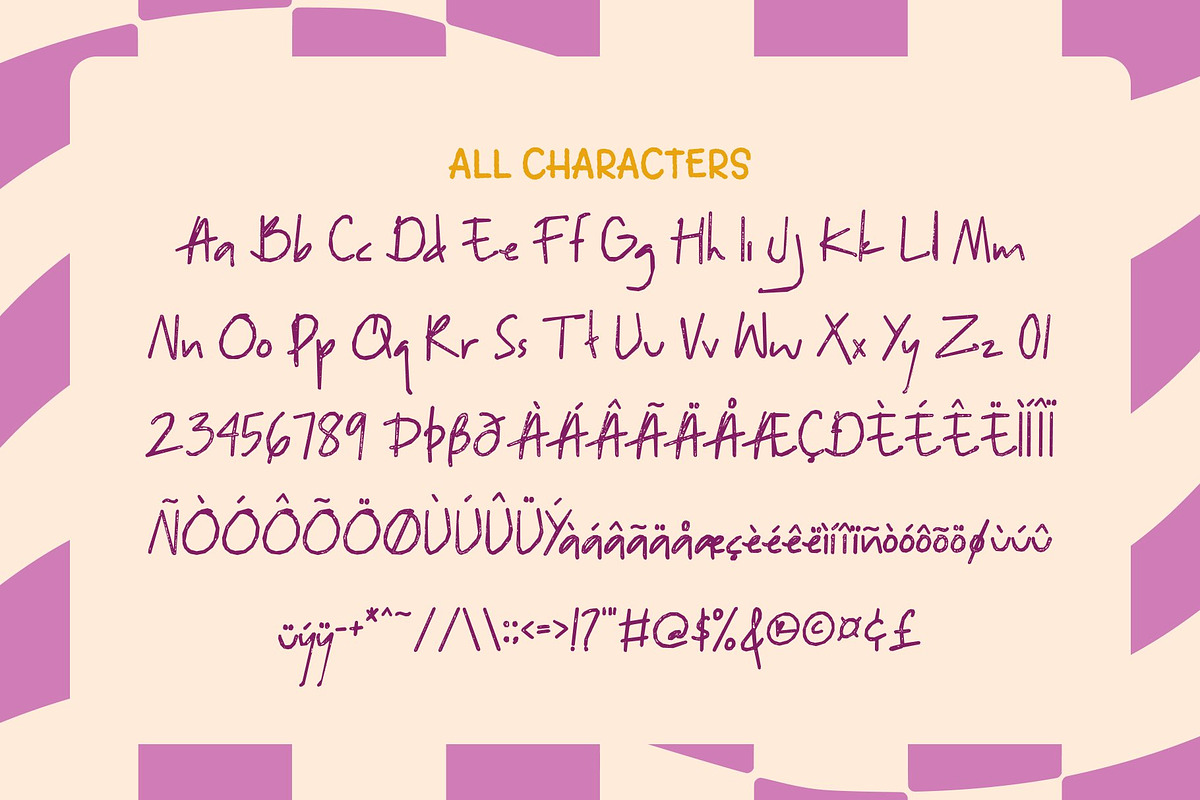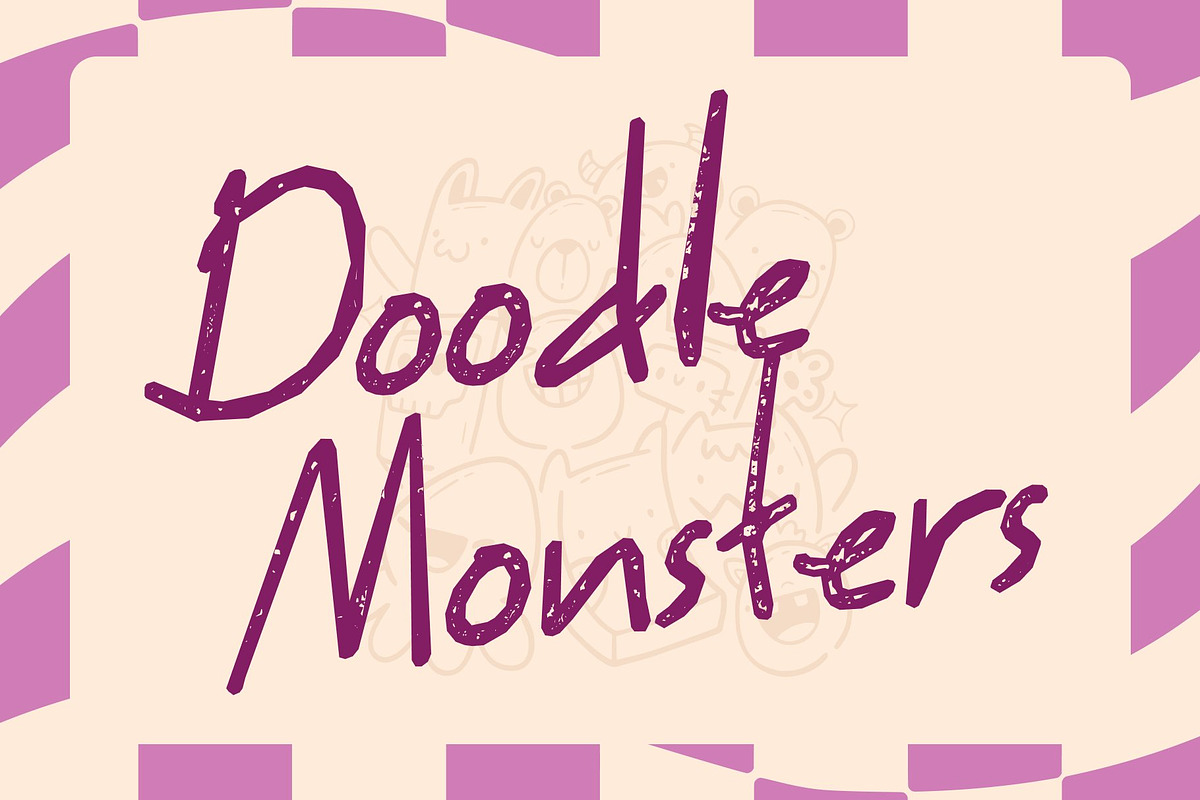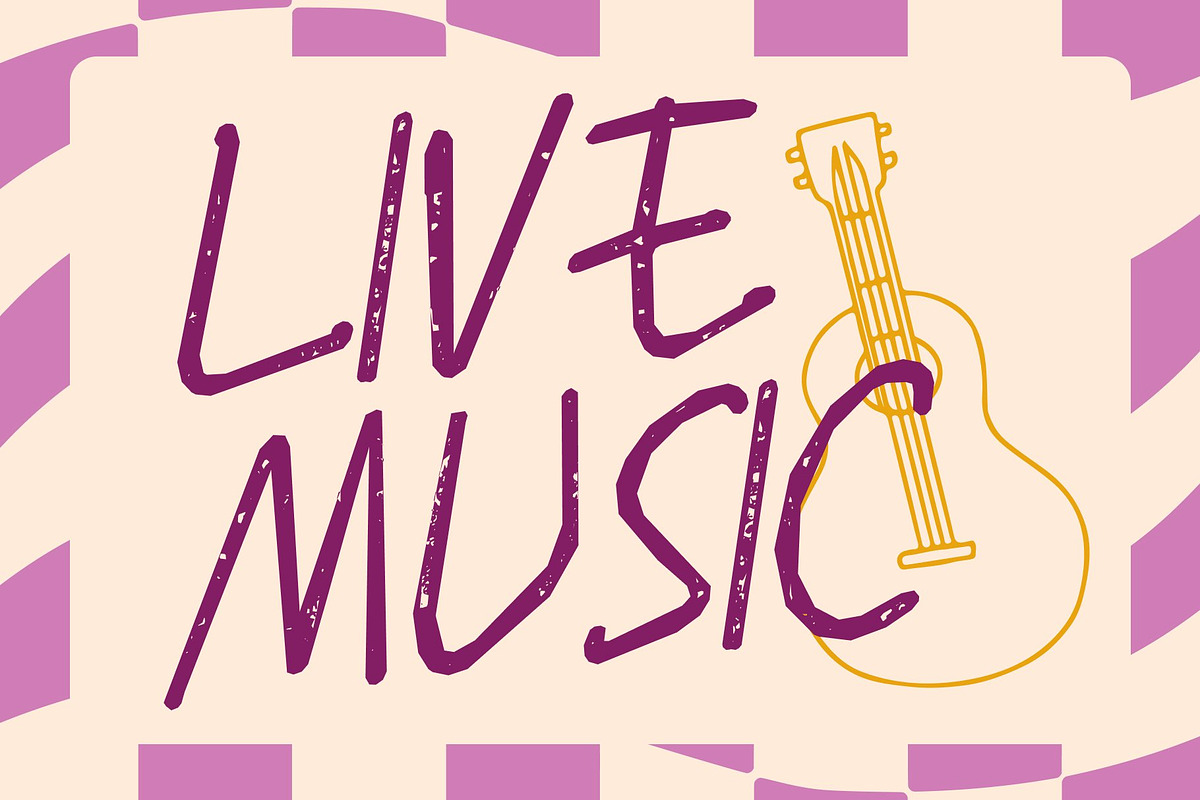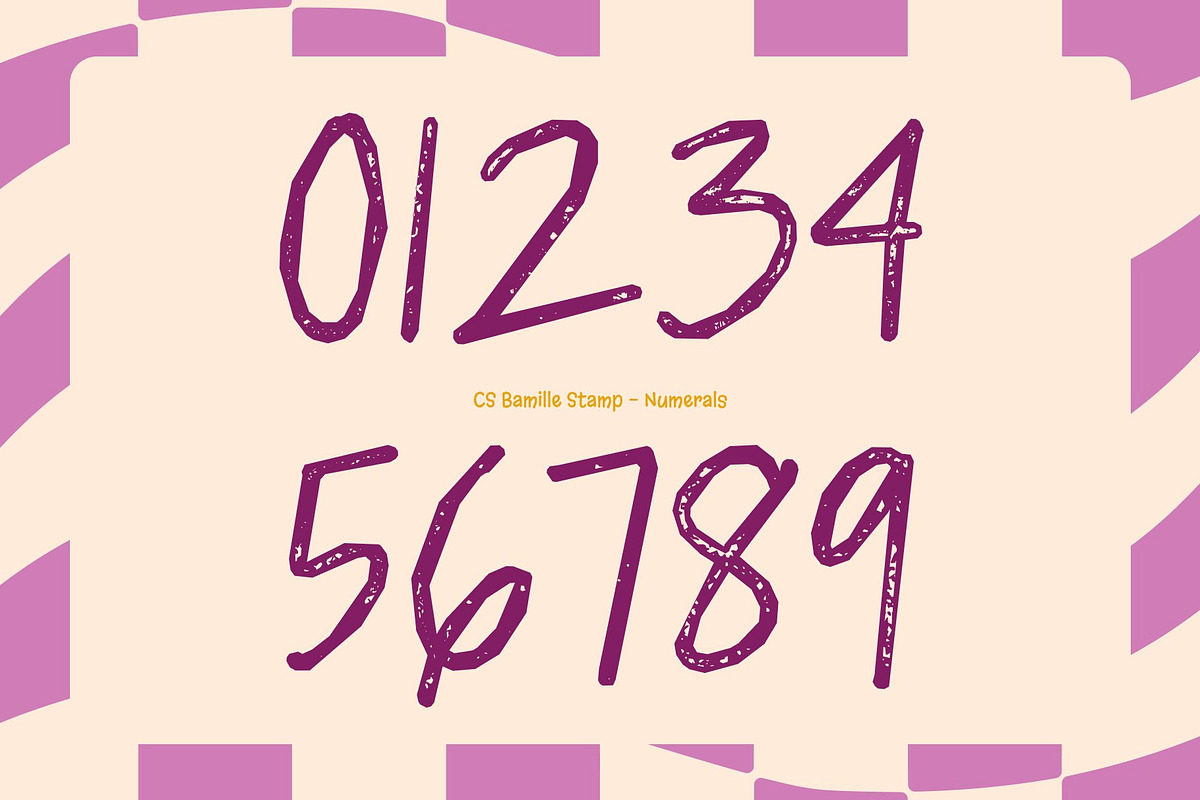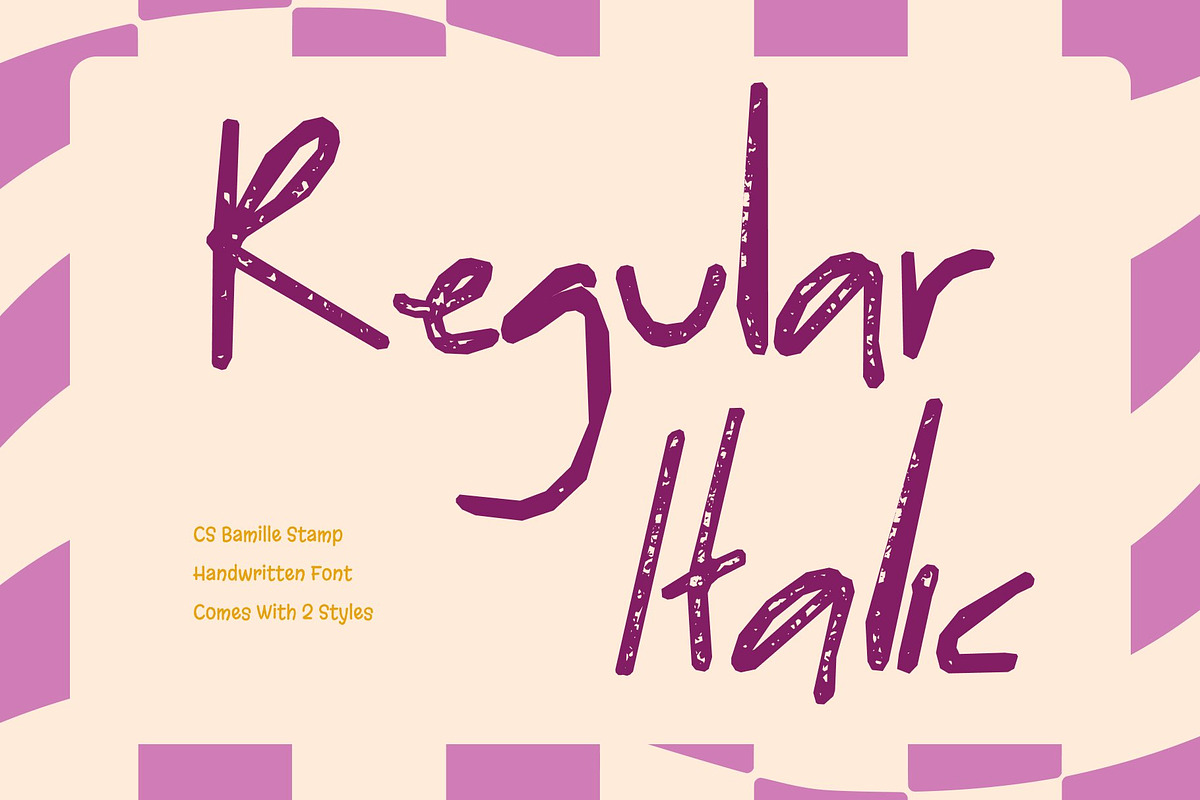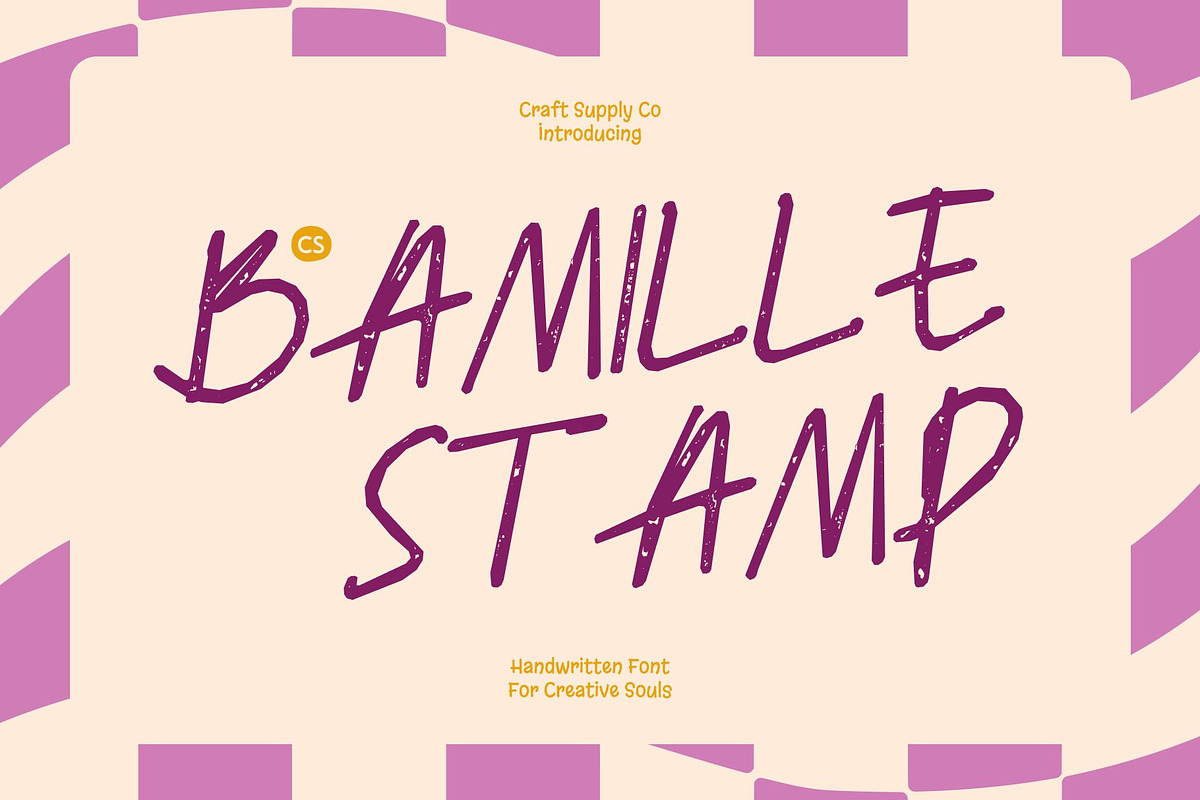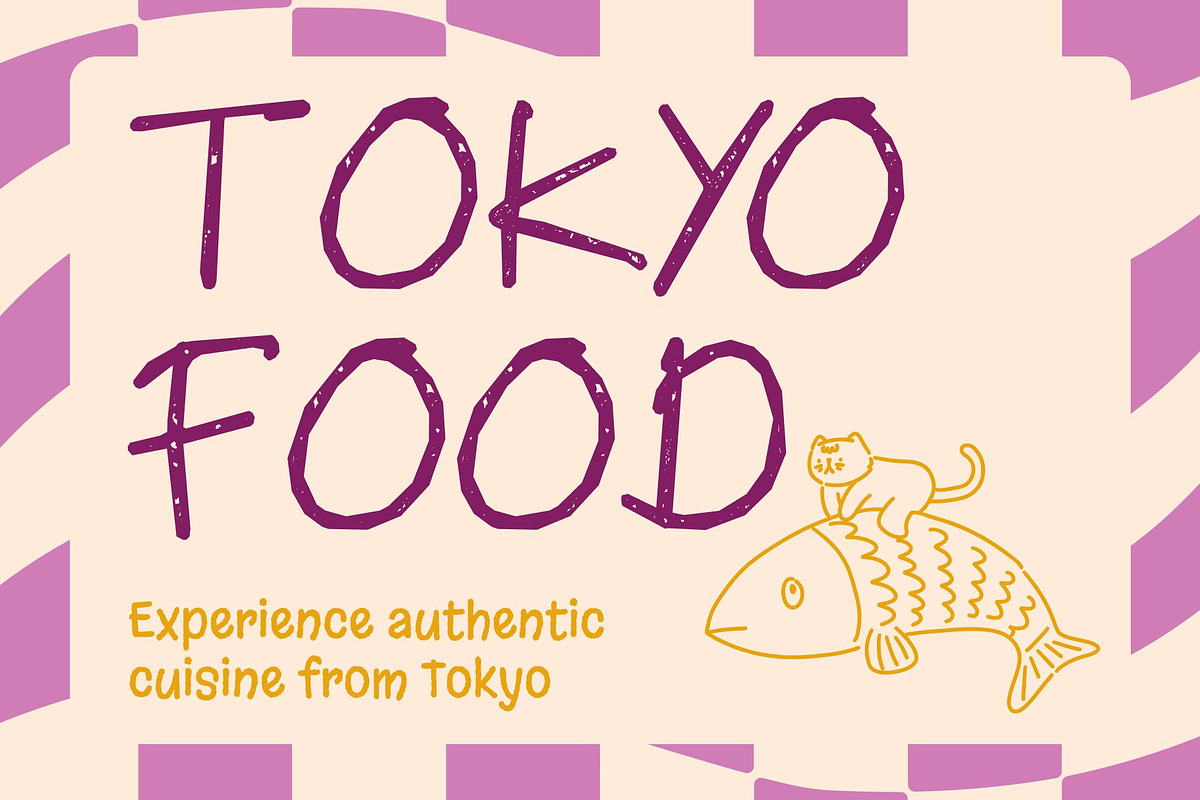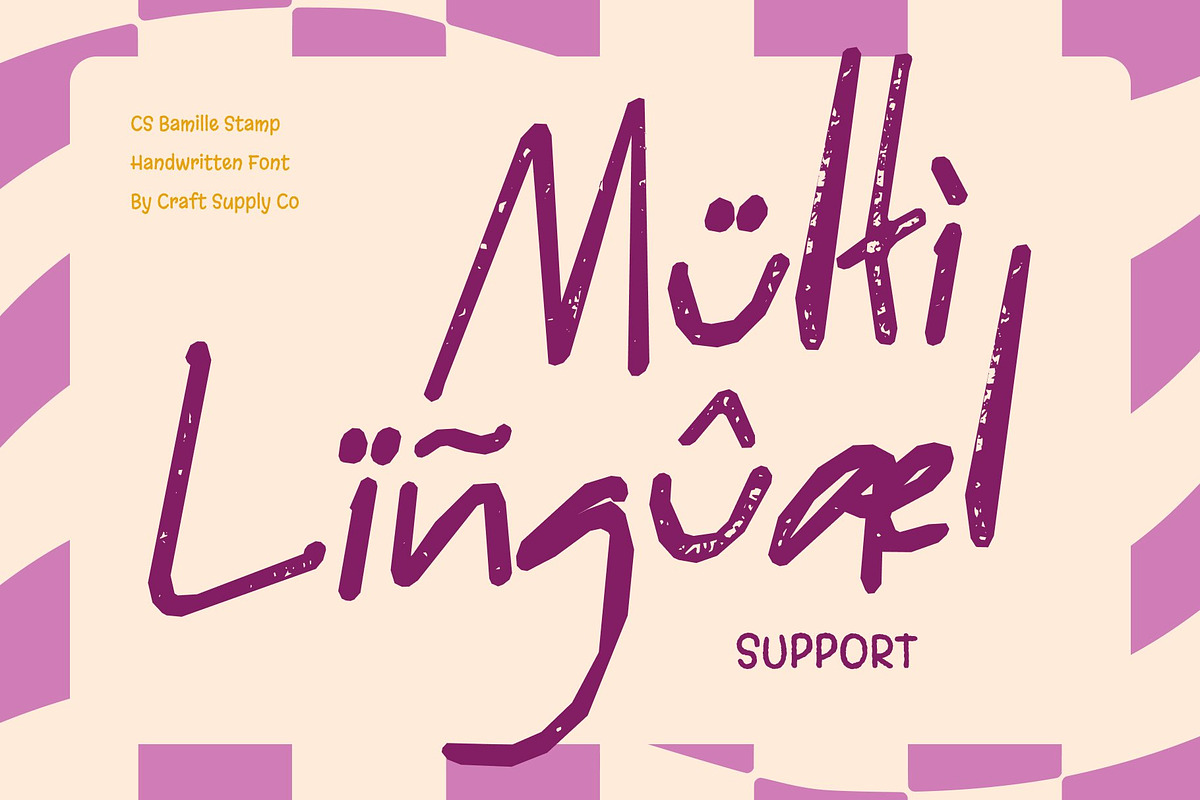
CS Bamille Stamp
CS Bamille Stamp – Handwriting Font with Warm Authenticity
Soft Expression with a Stamped Touch This captures the beauty of natural pen strokes and enriches it with a delicate stamped texture. Its fluid, organic letterforms maintain their softness and sincerity, while gentle ink variations and lightly distressed edges introduce a handcrafted, tactile charm. The result is a font that feels even more personal and emotionally engaging.
Natural Curves with Genuine Character The handwritten sans serif structure conveys warmth and approachability, now enhanced by a subtle print-inspired finish. Each curve appears effortless and authentic, giving text a relatable and heartfelt voice. The stamped effect adds depth without overwhelming the clean, expressive strokes.
Perfect for Personal Branding and Quotes This font shines in personal branding, inspirational quotes, lifestyle visuals, and social media graphics. The textured detail reinforces its human touch, ensuring messages feel genuine, intimate, and memorable.
Versatile for Invitations and Creative Projects From casual invitations and greeting cards to packaging and digital layouts, adapts beautifully across applications. Its blend of expressive handwriting and vintage-stamped warmth delivers a friendly, stylish presence that feels both modern and timeless.